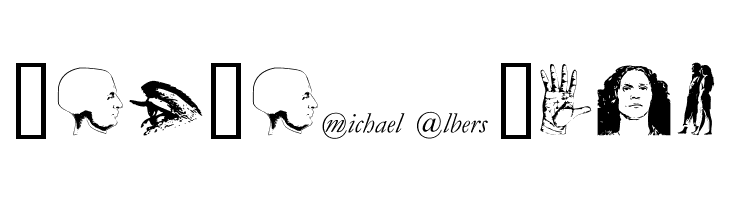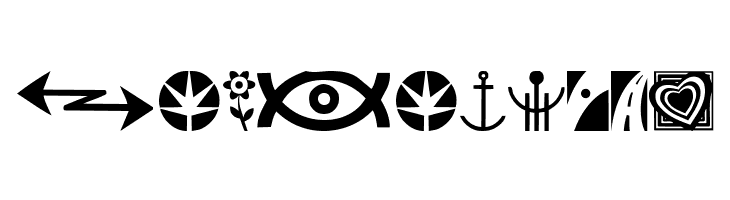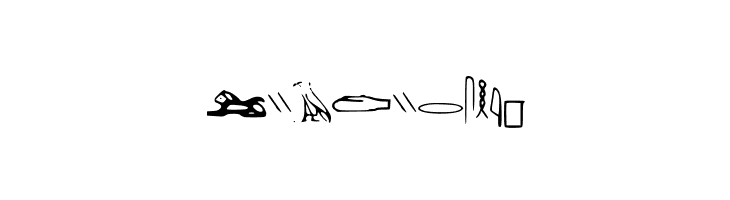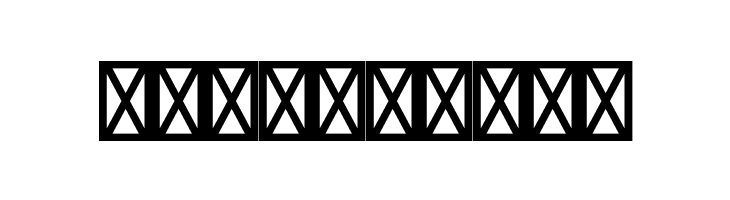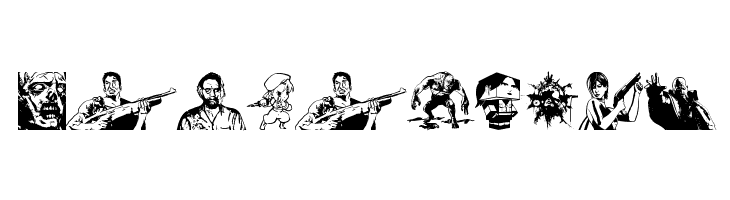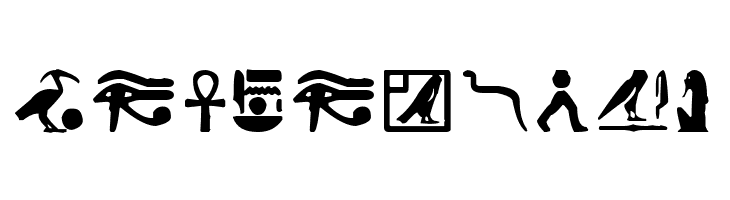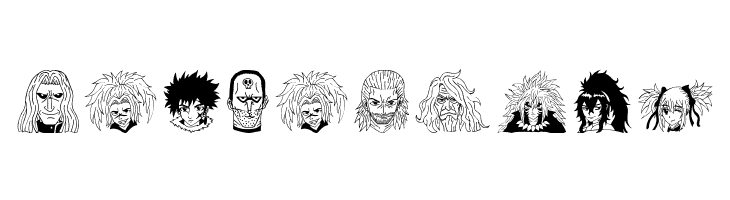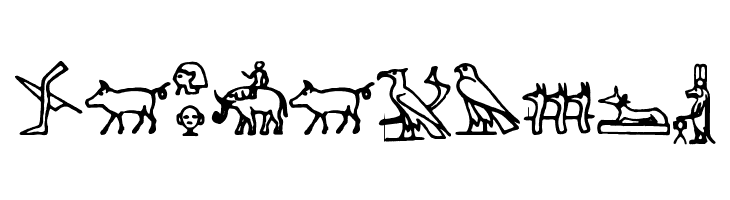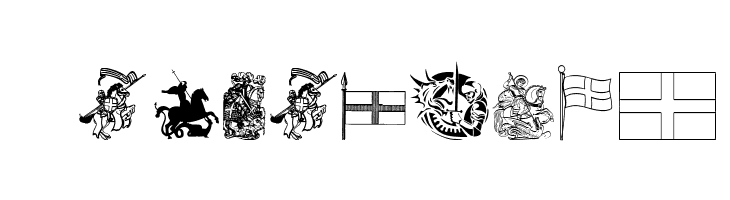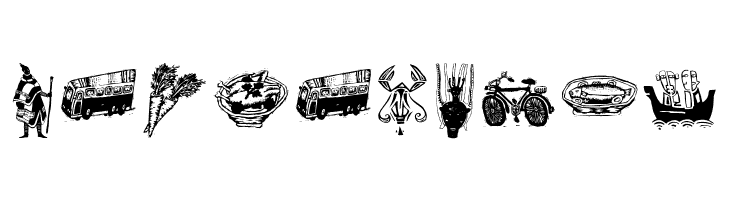
( Fonts by Daniel Gauthier )
A pictorial, image-based decorative font with historical military themes.
Ornate, tribal-inspired pictorial font with bold, intricate glyphs.
A pictorial, artifact-inspired decorative font with unique glyphs for each character.
A silhouette-based decorative font with pictorial glyphs.
Ornate, pictorial font based on indigenous American symbols.
A pictorial dingbat font with detailed illustrations for each character.
Tribal-themed pictorial font with unique illustrative glyphs.
( - cargocollective.com/arensdorff )
Silhouette pictorial hieroglyphs in a bold, decorative style.
( - cargocollective.com/arensdorff )
Pictorial, decorative font based on ancient Egyptian hieroglyphs.
( www.davidpustansky.com/fonts )
A pictorial dingbat font with fantasy adventure game motifs.
( Fonts by Fernando Haro - defharo.com )
A pictorial display font featuring various telephone and communication icons.
( Fonts by bob istheowl http://luc.devroye.org/bobistheowl.html )
A pictorial dingbat set featuring dramatic fantasy illustrations.
Animal silhouette pictorial display font.
Ornate pictorial dingbat font with floral and animal motifs.
( Asia Culture - Sutrisno Budiharto - www.sutrisnobudiharto.net )
Ornate pictorial font inspired by Javanese wayang shadow puppets.
( Ekkehard Beck - www.designers-skulls.de )
A decorative, abstract font with geometric and pictorial character designs.
( Intellecta Design - Paulo W - new.myfonts.com/foundry/Intellecta_Design/?refby=paulow )
Ornate dingbat set with historical and whimsical illustrations.
( Laurent Badaouy )
A pictorial, illustrative font with each glyph as a narrative scene.
( Marcos Augusto Farhat - www.farhatguitar.com )
A pictogram font for guitar chord diagrams.
( Woodcutter - woodcutter Manero - www.woodcutter.es )
A pictorial, hand-drawn font inspired by prehistoric cave paintings.
( Dani Foster Herring - dani3d.com/ )
Ornate pictorial font with detailed thematic illustrations for each character.
( Michael Albers - formerly at www.warstein.owl.de/~albers/goodies/fonts/ )
A collage-inspired decorative font with pictorial glyphs and surreal imagery.
( Ouripedes Gallene )
A bold, decorative icon set with diverse abstract and pictorial symbols.
( Shadowsantos )
A hieroglyphic, pictorial font mimicking ancient Egyptian script.
A whimsical and artistic display font with pictorial elements in each character.
Decorative Aztec-inspired iconographic glyph set.
( Fonts by xstreamed.tv )
A Resident Evil-themed pictorial font with character and logo silhouettes.
( Fonts by Ding Bang )
Pictorial, hieroglyph-inspired decorative font.
Martial arts silhouette font with Tai Chi poses.
Ornate, manga-inspired pictorial font with character heads and symbols.